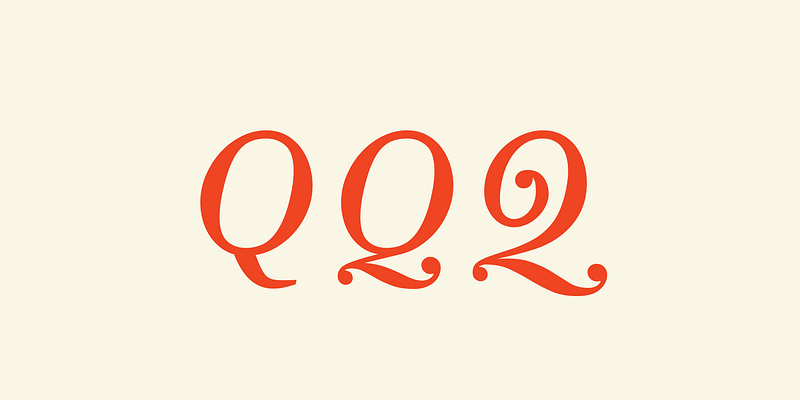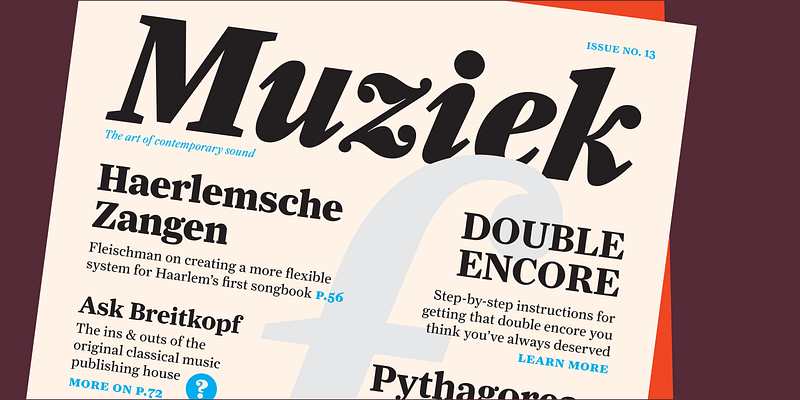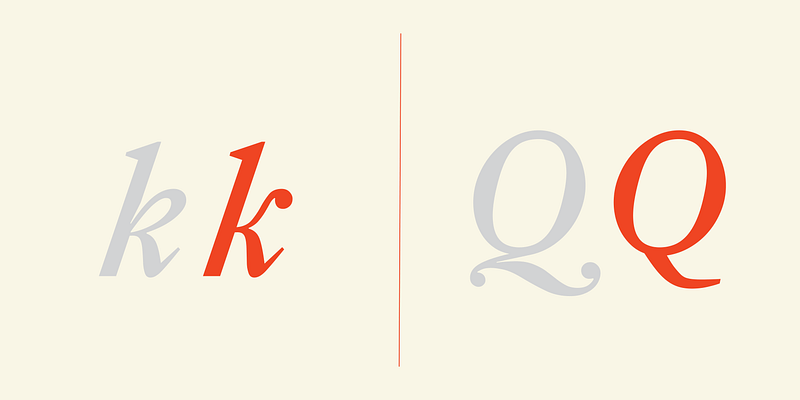
German-born punchcutter Johann Fleischman, a contemporary of John Baskerville and Pierre Simon Fournier, worked at the Enschedé Foundry in Haarlem. Expert in advanced tools and the qualities of fine steel, he pushed beyond the frontiers of his time, cutting active typefaces famous worldwide for their “sparkle.” Christian Schwartz focused on Fleischman’s exuberant angularity, carrying it to all weights of his Farnham series—Text, Display, and Headline; FB 2004, 2016. For additional license options like app, enterprise, multi-user, and self-hosted web, visit [Farnham on Type Network](https://store.typenetwork.com/foundry/orangeitalic/series/farnham?family=farnham-display).